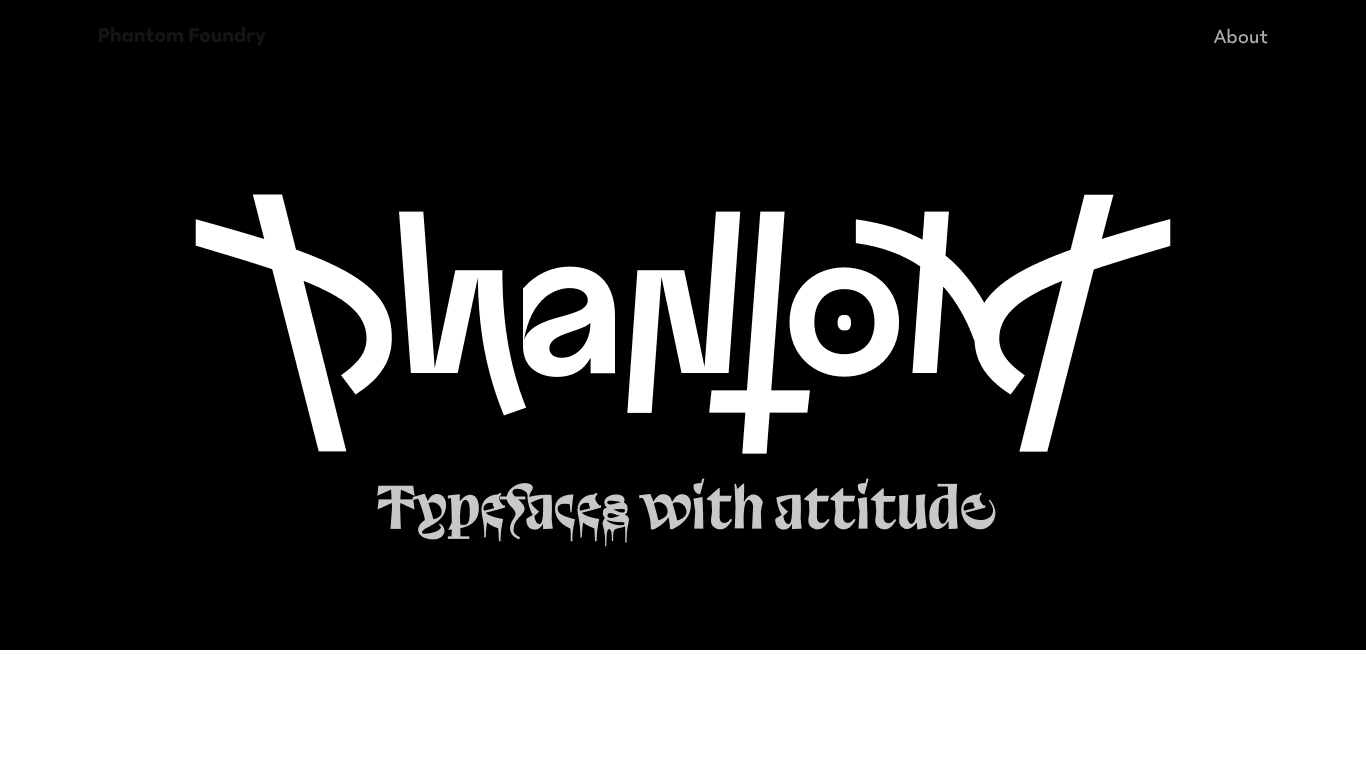
Phantom Foundry
France
Phantom Foundry was established in 2018 by French type designer Jean‑Baptiste Morizot, known for his blend of precision and playfulness in type design. The foundry debuted with bold releases like Super Fat Bob and Phantom Sans, and continued with expressive designs such as Token and variable fonts like Token Bebop. While Phantom Foundry operates as a small independent retailer, Morizot’s work has been used in wider type and brand projects—reflecting his broader influence beyond the studio. What truly sets Phantom apart is its fearless experimentation: from super‑fat, geometric letterforms to variable and hybrid designs that challenge typographic expectations, Morizot brings a distinctive and avant‑garde voice to contemporary font making.